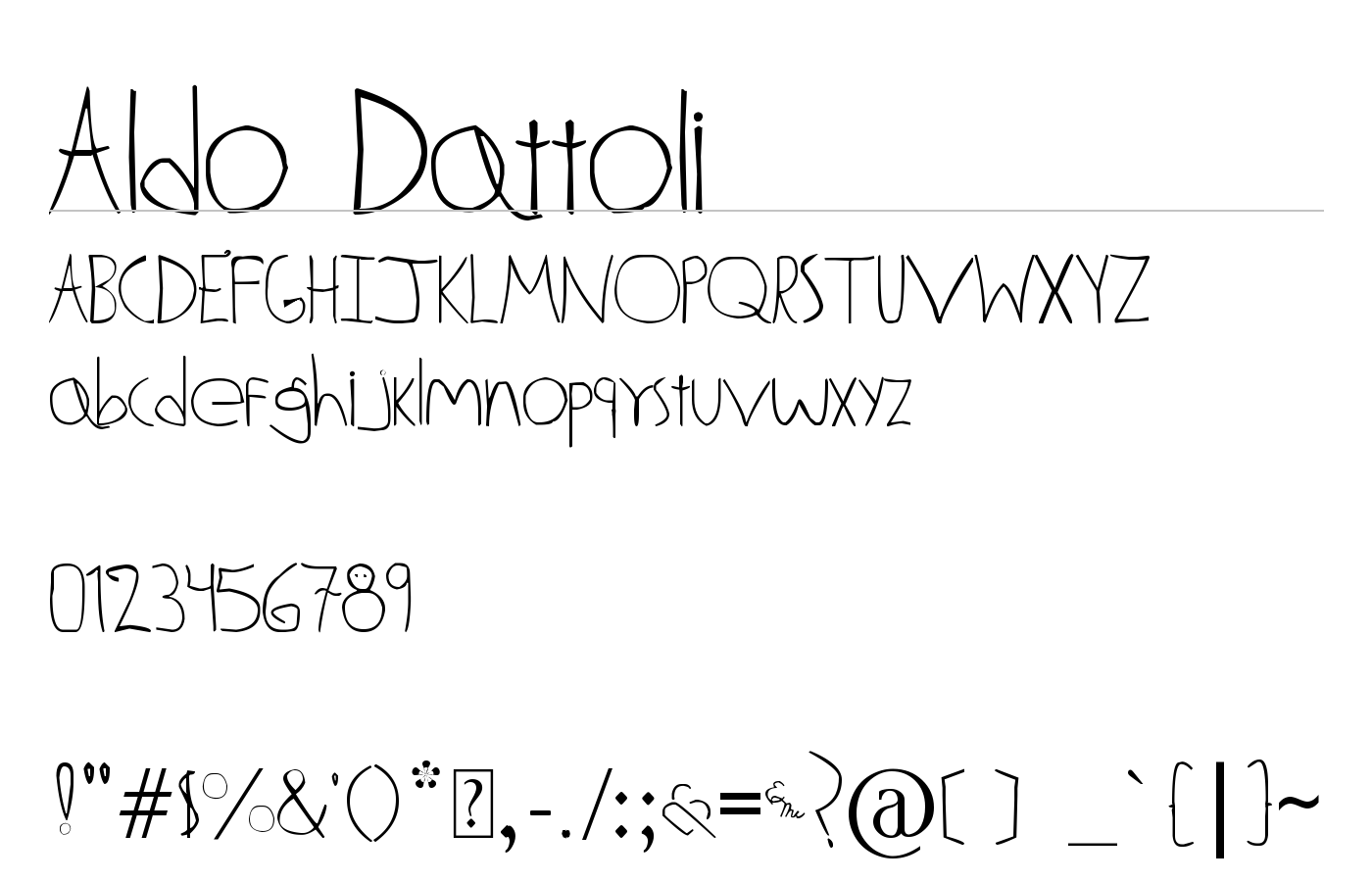
Aldo Dattoli is a whimsical, hand-drawn sans serif font with a slender and irregular letterform that gives it a playful, creative personality. Its tall x-height, delicate strokes, and quirky shapes make it perfect for artistic projects, informal branding, or any design seeking a lighthearted, approachable feel. This font works best in headlines, logos, or casual editorial designs where a unique and personal touch is desired.
Aldo Dattoli Font